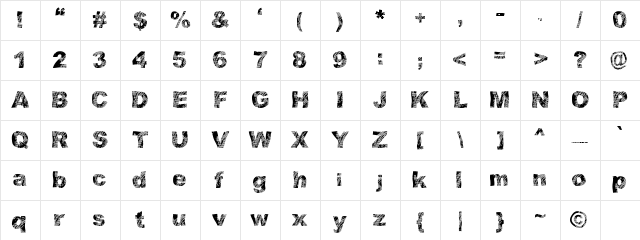
strippin'dirty Regular
Foundry: Vered Gilad Friedman
Designer: Vered Gilad Friedman
Design Context for strippin'dirty
strippin'dirty is a composed and adaptable typeface that performs quietly and consistently across a wide range of design contexts.
Who designed the strippin'dirty Regular font?